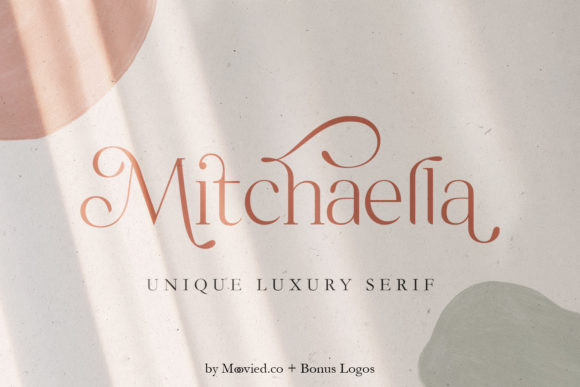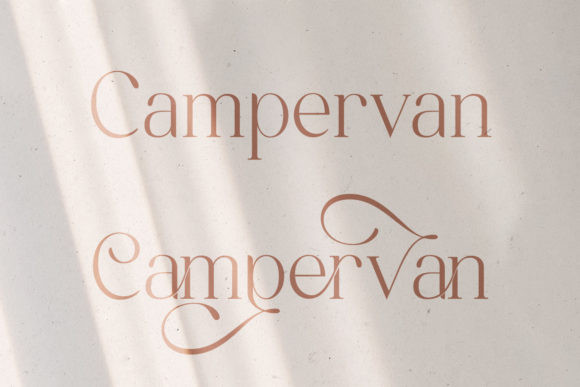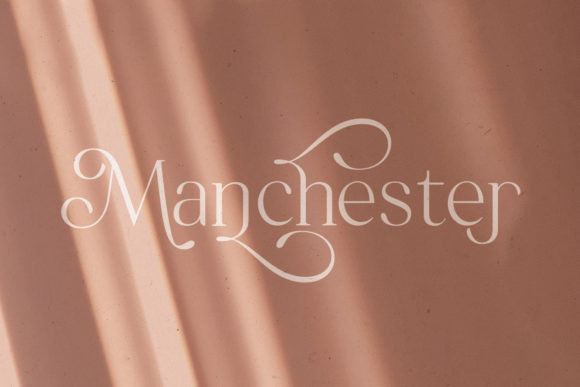
Mitchaella Font
Mitchaella is an incredibly elegant and delicate serif font. Fall in love with its incredibly versatile style and use it to create spectacular designs!